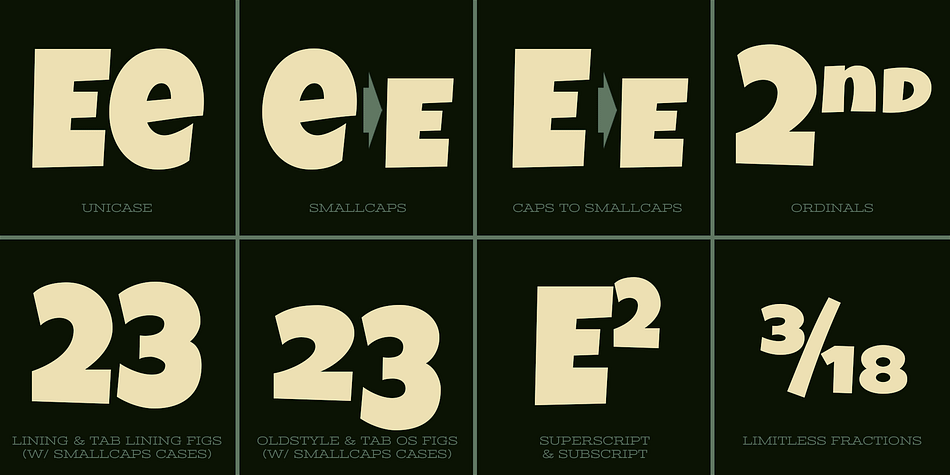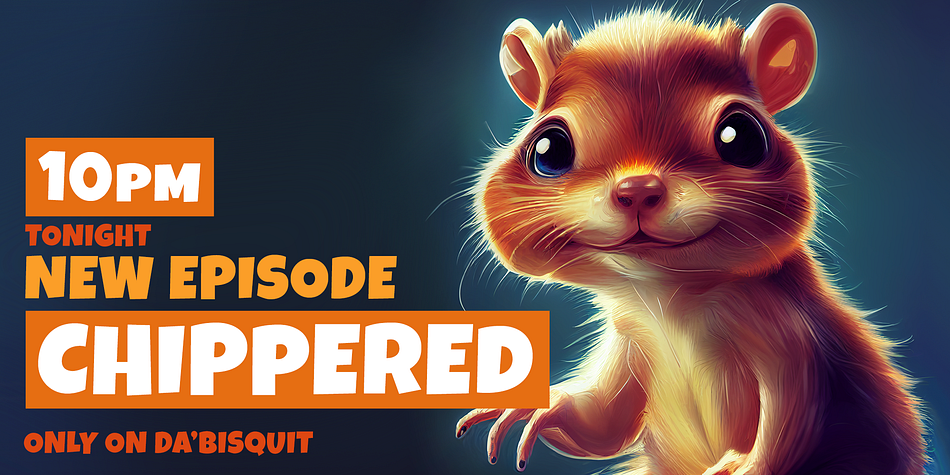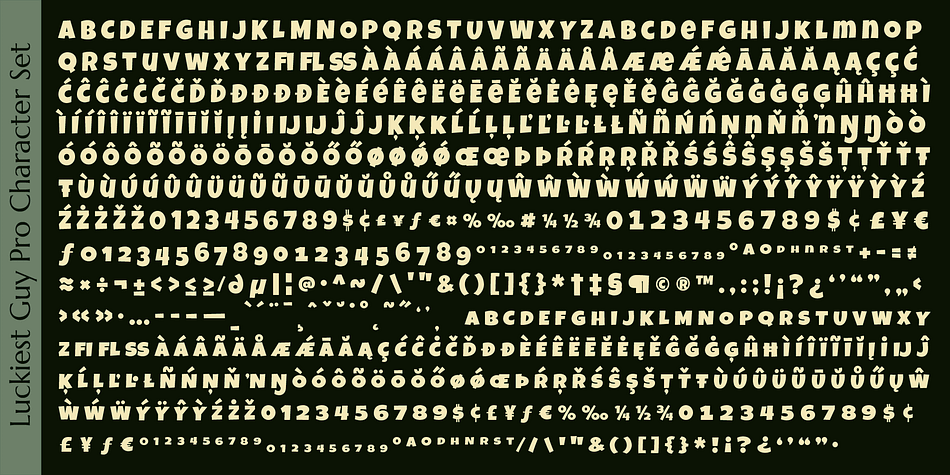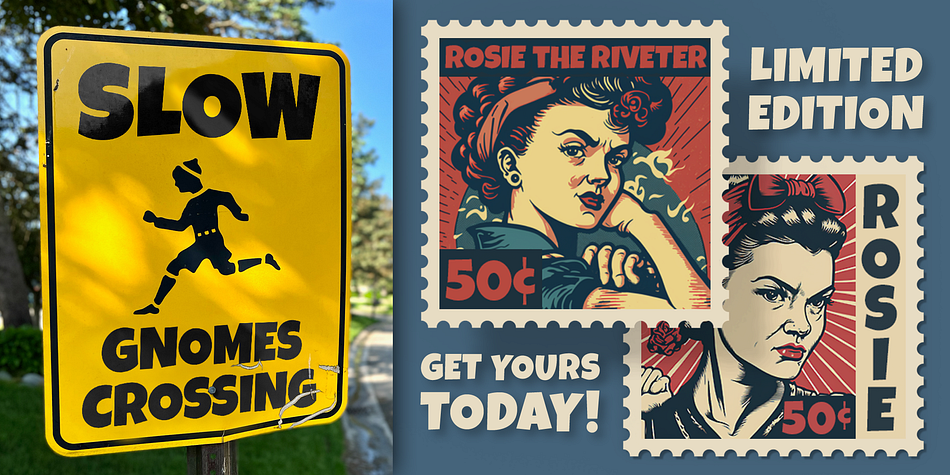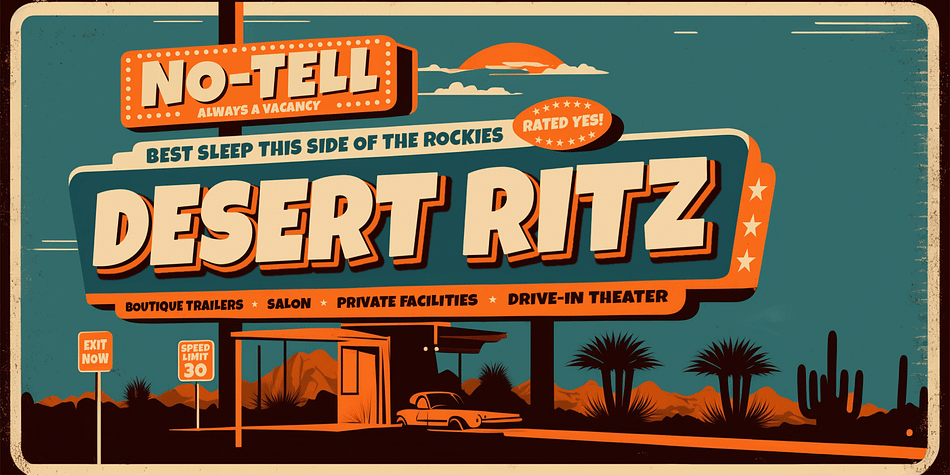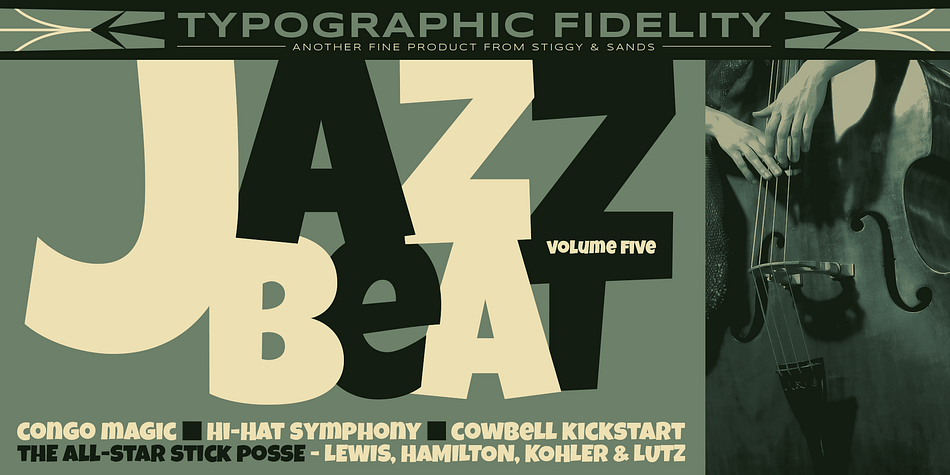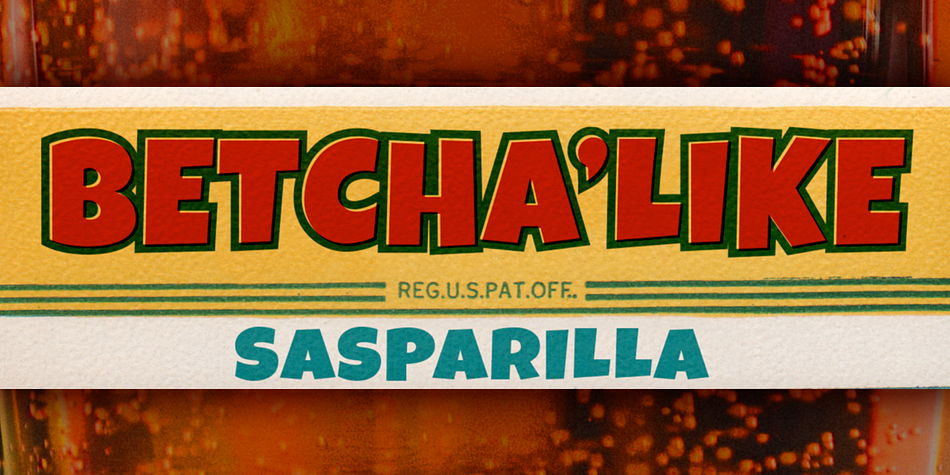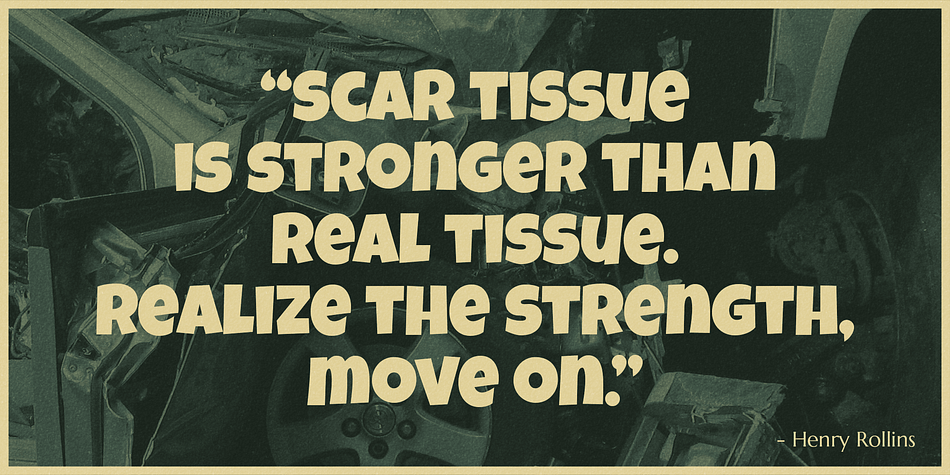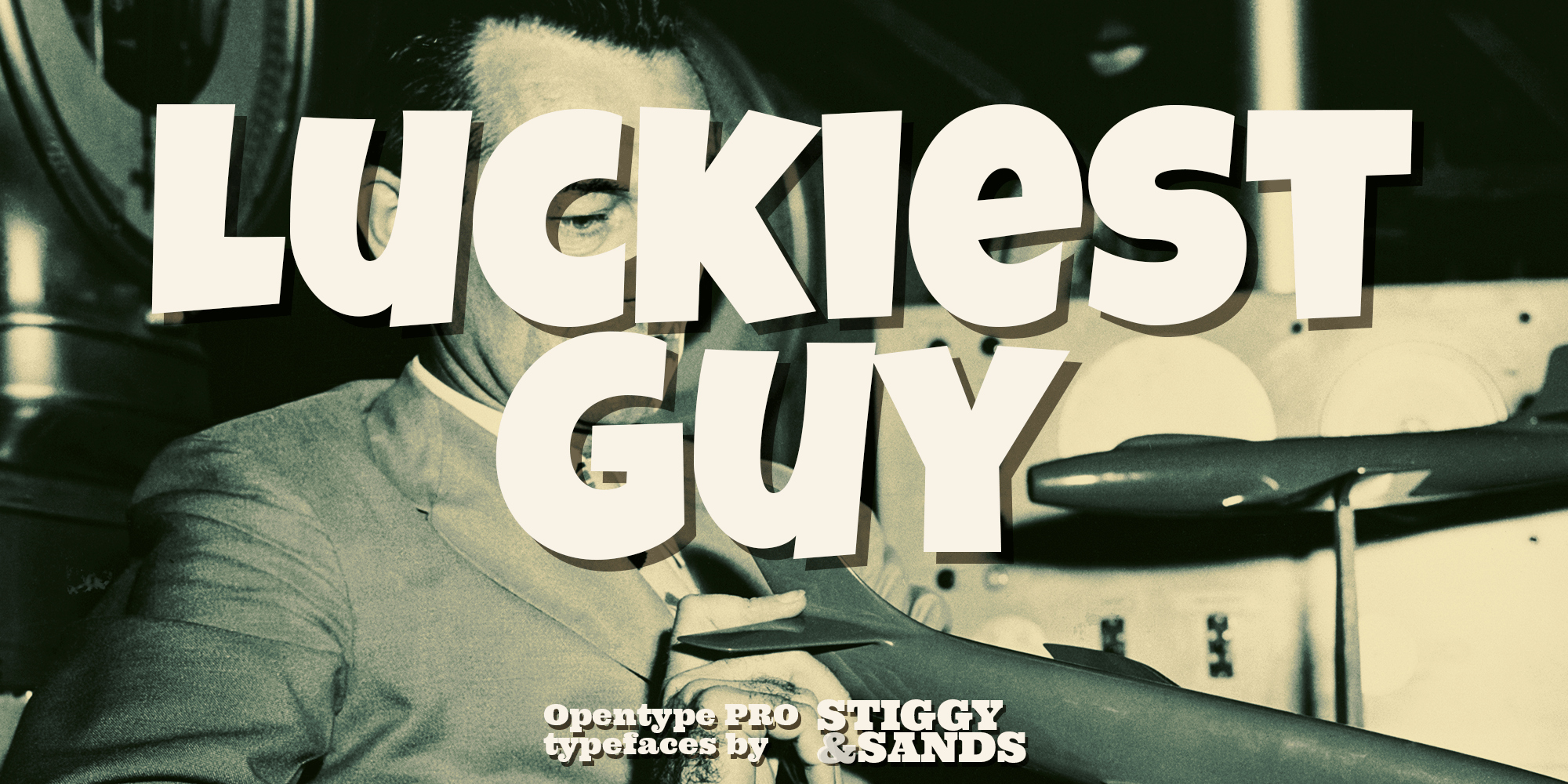
Designed by Jim Lyles and Brian J. Bonislawsky, Luckiest Guy Pro is a comic and display sans font published by Stiggy & Sands.
Luckiest Guy Pro was inspired by hand-lettering by vintage 1950’s advertisements. The uber-bold unicase letterforms exude charm and light-heartedness, while the SmallCaps and extensive figure sets expand the range of usability and appeal.